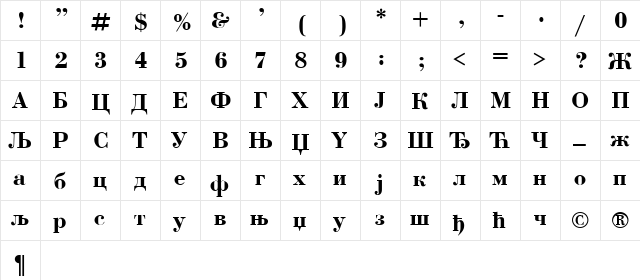
Bodoni Cirilica Bold
Design Context for Bodoni Cirilica Typeface
Bodoni Cirilica offers clean, dependable letterforms without strong stylistic allegiance, making it a practical choice for designers who need flexibility. Its bold stroke weight gives it real presence on the page.